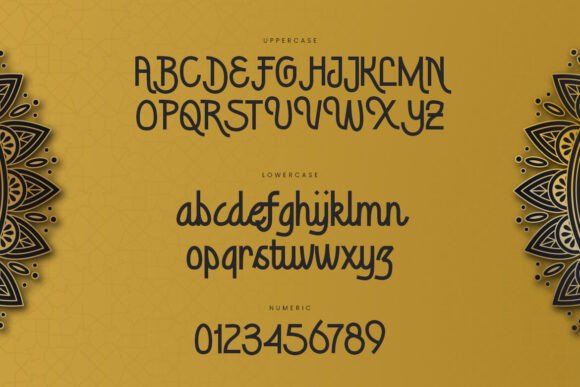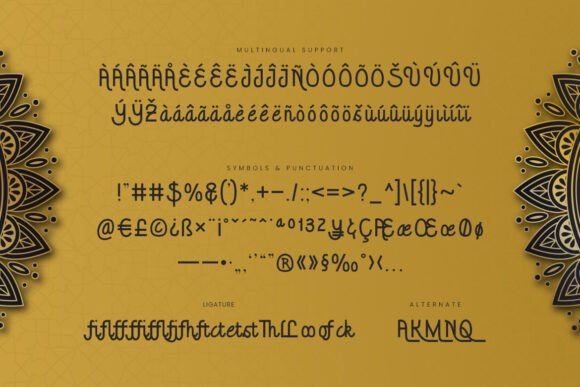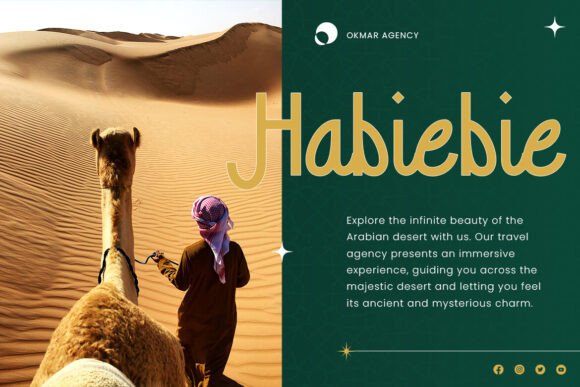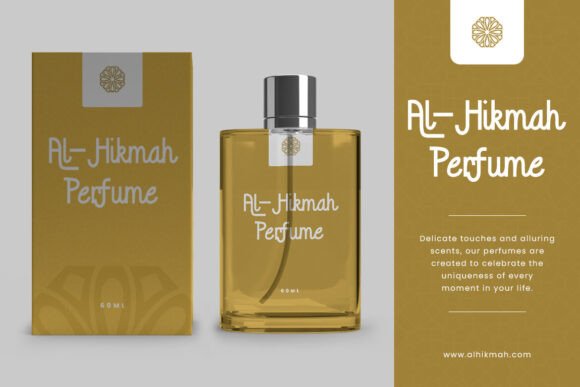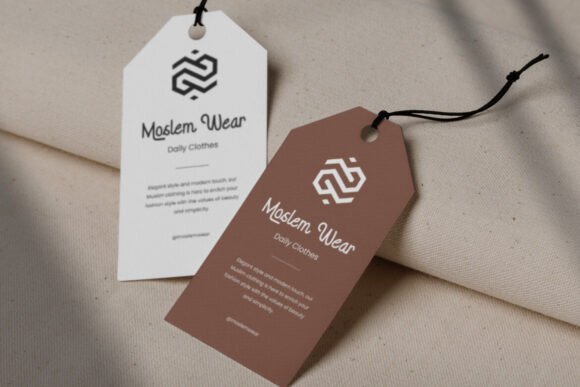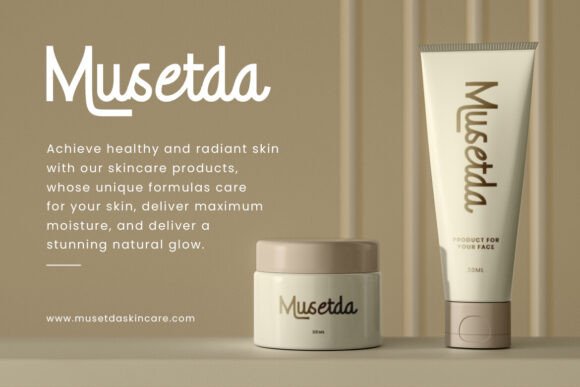
Introduction to Moutala Font
Have you ever stumbled upon a project where you need to convey the essence of a culture, but struggle to find the perfect visual representation? For many designers, this is a common challenge, especially when working on projects that require a touch of Arabic flair. It was this exact moment that led me to discover the Moutala Font, an elegant and culturally rich typeface that has revolutionized my creative process.
As a designer, I can attest to the value of having high-quality design resources at your fingertips. The Moutala Font is more than just a font – it’s a design resource that offers a unique blend of tradition and modernity, making it perfect for branding, advertising, book covers, and cultural projects that demand a sophisticated Arabic touch.
With its smooth, flowing strokes and transparent background, the Moutala Font is ideal for both print and digital applications, allowing designers to bring their creative projects to life with ease and precision. Whether you’re working on a free download or a paid project, this font is sure to elevate your design and leave a lasting impression on your audience.
Key Features of Moutala Font
- High-quality font design, perfect for creative projects that require a unique touch.
- Features a transparent background, allowing for effortless customization and blending with your design.
- Designed to be highly legible, making it an ideal choice for body text, headings, and titles in your creative project.
- Can be easily scaled up or down without losing its clarity, making it perfect for use in various design contexts.
Honest Review: Moutala Font
As a designer, I’m always on the lookout for high-quality design resources to elevate my creative projects. The Moutala Font caught my attention, and I decided to give it a try.
- Unique and stylish design: The Moutala Font offers a distinctive and modern aesthetic that can add a touch of sophistication to any design project.
- Wide range of styles: The font family includes various weights and styles, making it versatile and suitable for a wide range of creative projects.
- Transparent background: The font’s transparent background may not work well with all design elements, requiring additional adjustments.
Overall, I think the Moutala Font is a great addition to any designer’s toolkit, especially for those working on creative projects that require a unique and stylish touch. While it has some limitations, its high quality and versatility make it a valuable design resource.
The Moutala Font is ideal for creative projects that require a unique and eye-catching font. Use it for logos, branding materials, or any design that needs to stand out from the crowd.
To get the most out of the Moutala Font, experiment with different font sizes and styles to achieve the desired effect. You can also pair the font with other design elements to create a visually appealing composition.